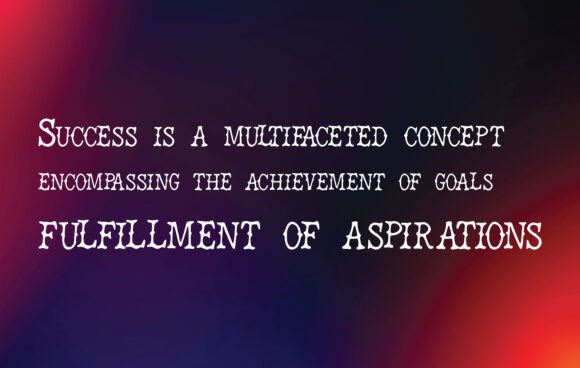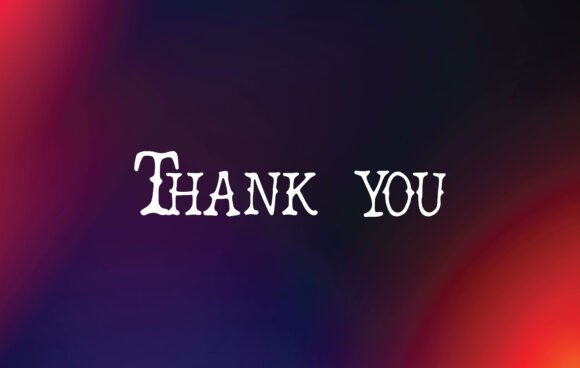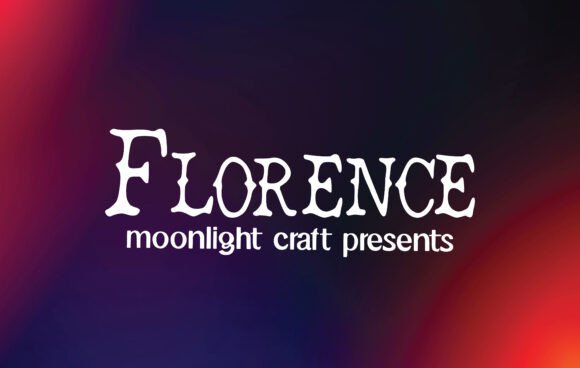
Discover the Elegance of Florence Font: Elevate Your Designs with Sophistication
Are you on the hunt for a font that can transform your creative projects into stunning masterpieces? Look no further than the Florence font. This exquisite typeface is designed to take your designs to new heights, making it the perfect choice for crafters and designers alike. With its elegant and beautiful appearance, Florence font is sure to captivate your audience and leave a lasting impression.
The Potential to Elevate Your Creative Ideas
Florence font is more than just a typeface – it’s a design solution that can elevate your creative ideas to the highest level. Its unique and sophisticated style makes it an excellent choice for a wide range of design projects, from eye-catching logos and branding materials to inspiring quotes and more. Whether you’re a seasoned designer or a crafty DIY enthusiast, Florence font is the perfect tool to help you bring your vision to life.
Why Choose Florence Font?
So, what sets Florence font apart from other typefaces? Here are just a few reasons why it’s the best choice for your design needs:
- Elegant and Beautiful: Florence font boasts a stunning, elegant design that’s sure to add a touch of sophistication to any project.
- Versatile: This font is perfect for a wide range of design applications, from logos and branding to quotes and more.
- Easy to Read: Despite its elegant appearance, Florence font is highly legible, making it easy for your audience to read and understand your message.
- Unique: With its distinctive style, Florence font is sure to help your designs stand out from the crowd.
Florence font is a dream come true for designers and crafters who want to create stunning visual content. Whether you’re designing a logo, creating a brand identity, or crafting a beautiful quote, this font is sure to help you achieve your goals. Its versatility and elegance make it an excellent choice for:
- Logo Design: Create a memorable and impactful logo that showcases your brand’s personality and style.
- Branding: Develop a consistent brand identity that exudes elegance and sophistication.
- Quotes and Typography: Add a touch of beauty and inspiration to your quotes and typography projects.
Tips for Using Florence Font
To get the most out of Florence font, here are a few tips to keep in mind:
- Experiment with Sizes: Play around with different font sizes to find the perfect balance for your design.
- Pair with Other Fonts: Combine Florence font with other typefaces to create a unique and visually appealing design.
- Use it Sparingly: Don’t be afraid to use Florence font sparingly to create a sense of drama and emphasis.
In conclusion, Florence font is a beautiful and elegant typeface that’s perfect for designers and crafters who want to elevate their creative projects to new heights. With its versatility, sophistication, and ease of use, it’s an excellent choice for a wide range of design applications. So why wait? Download Florence font today and discover the power of beautiful typography!